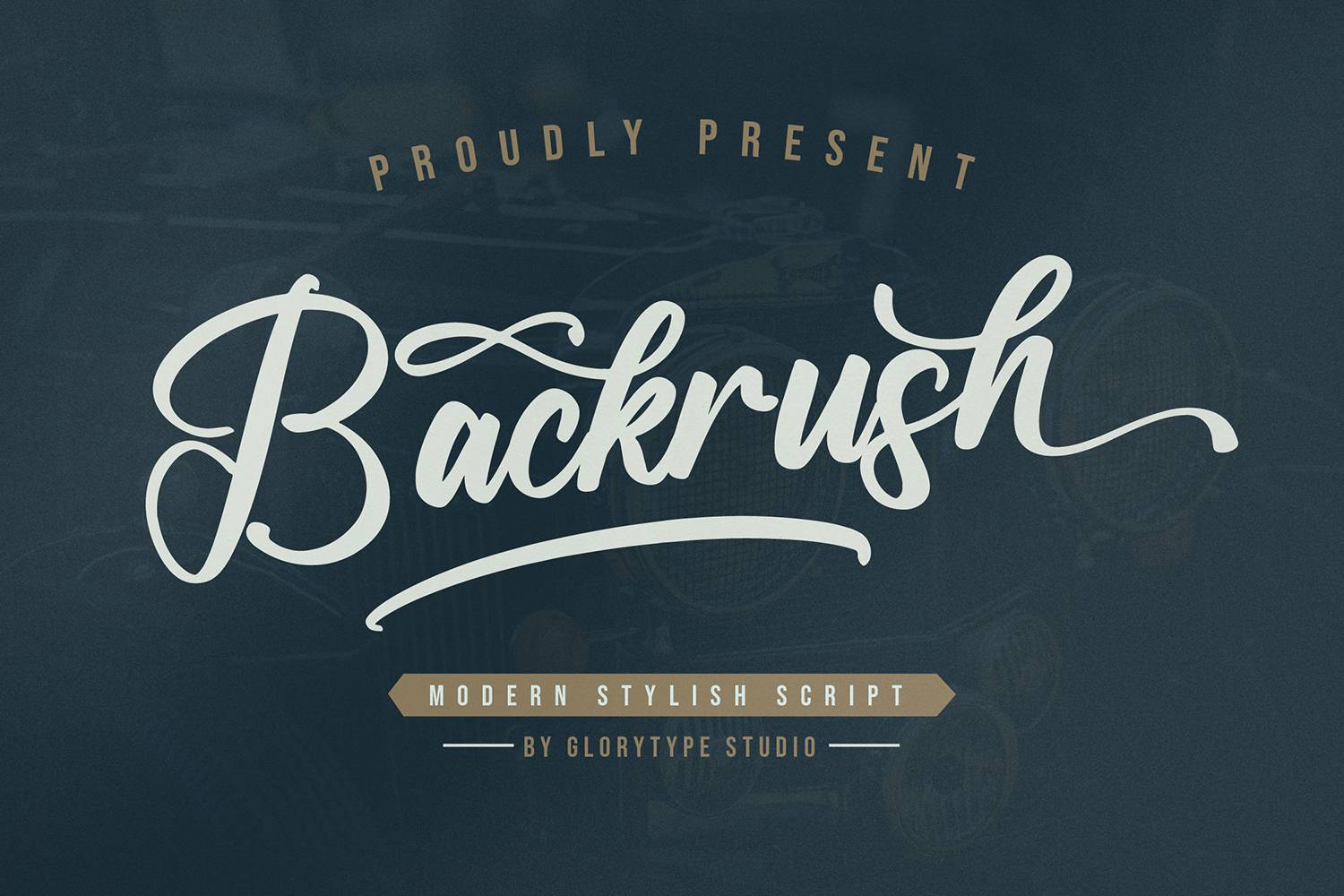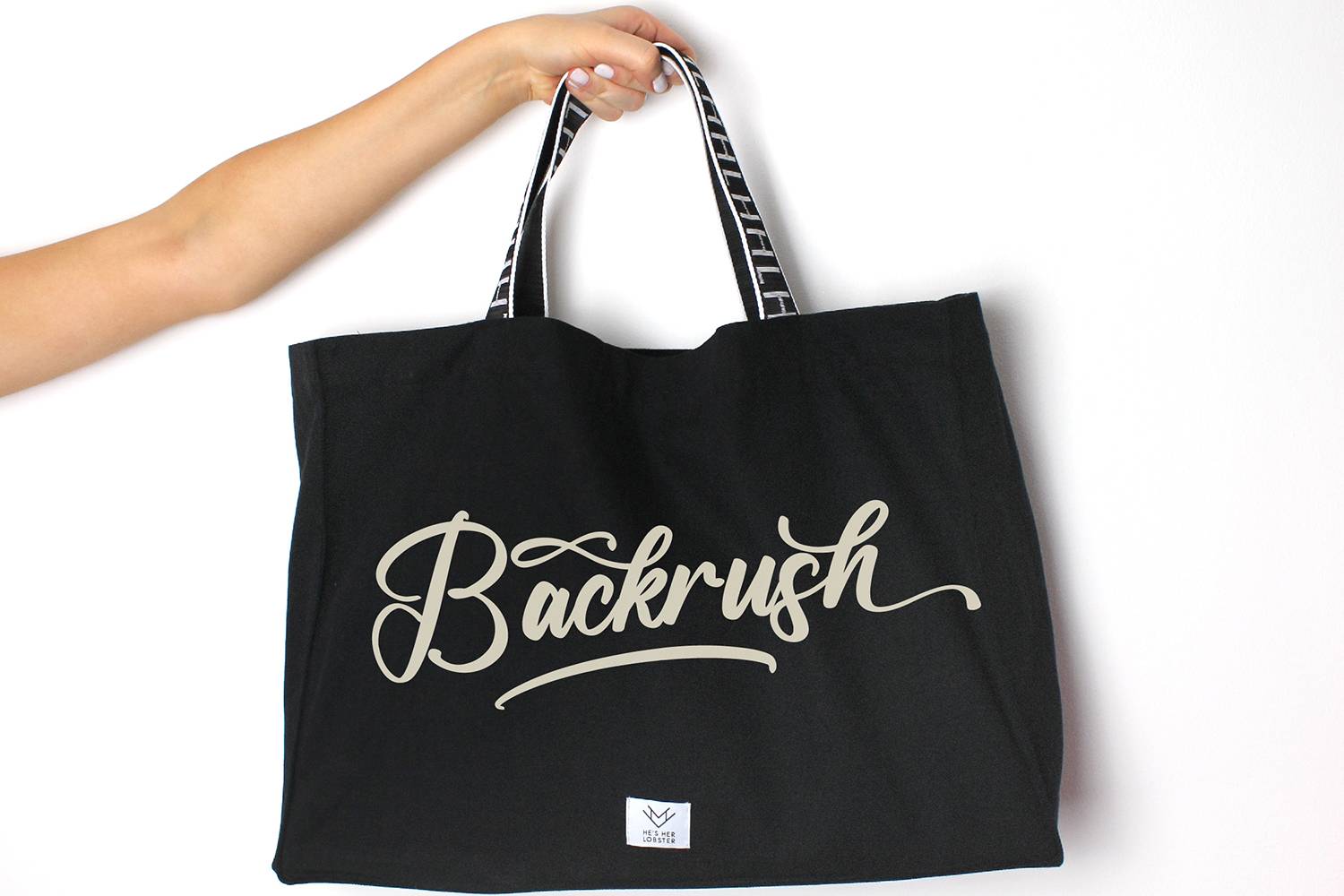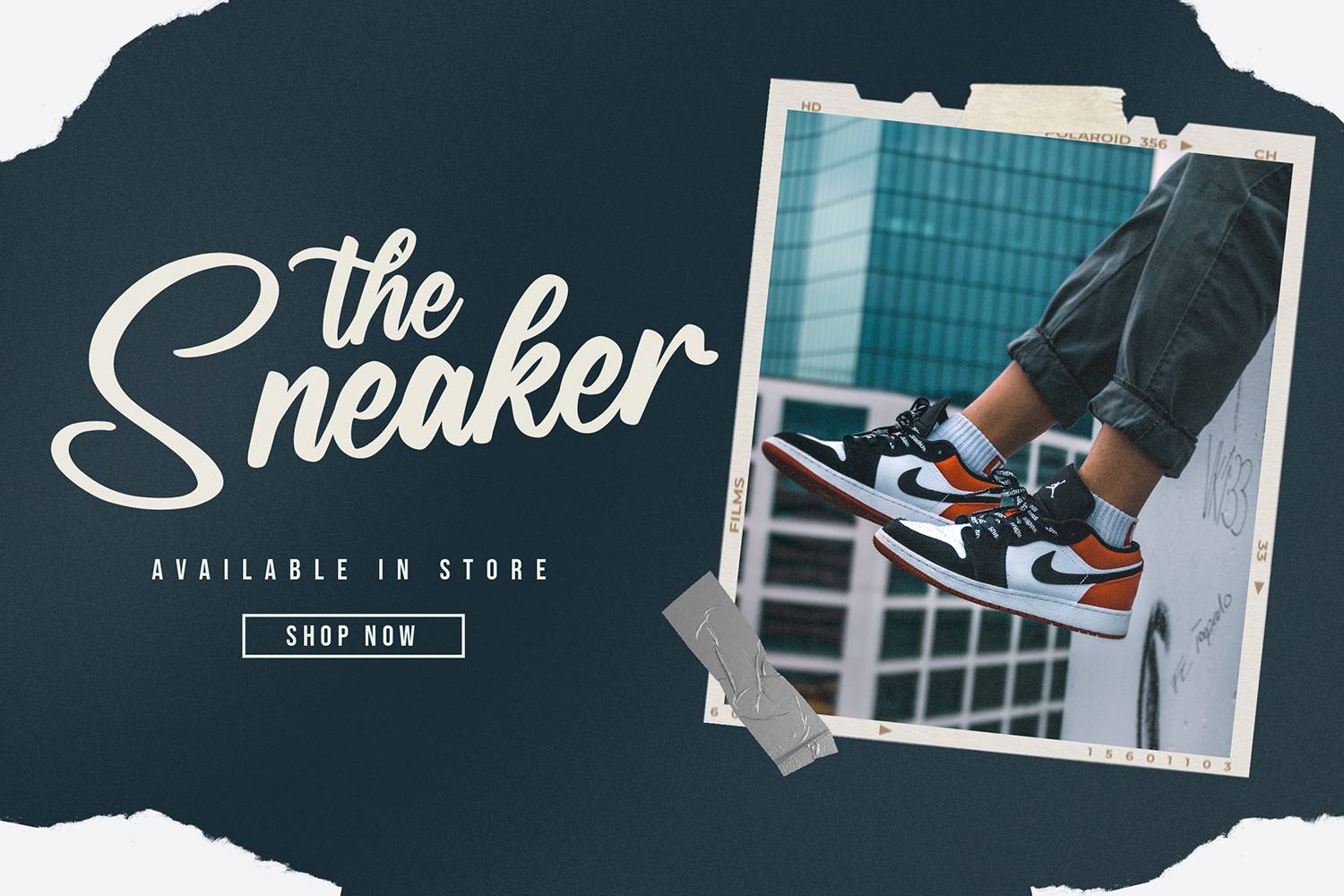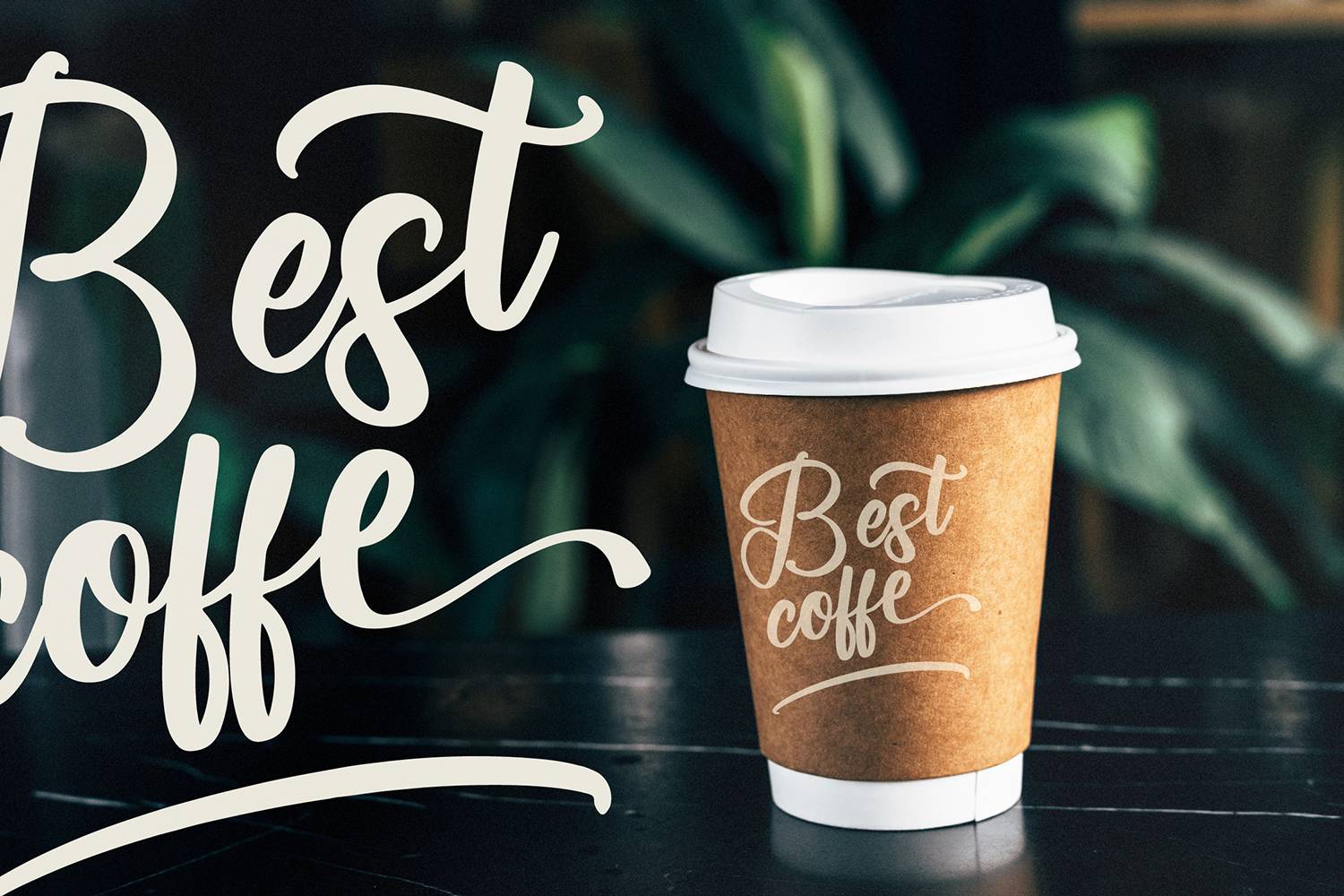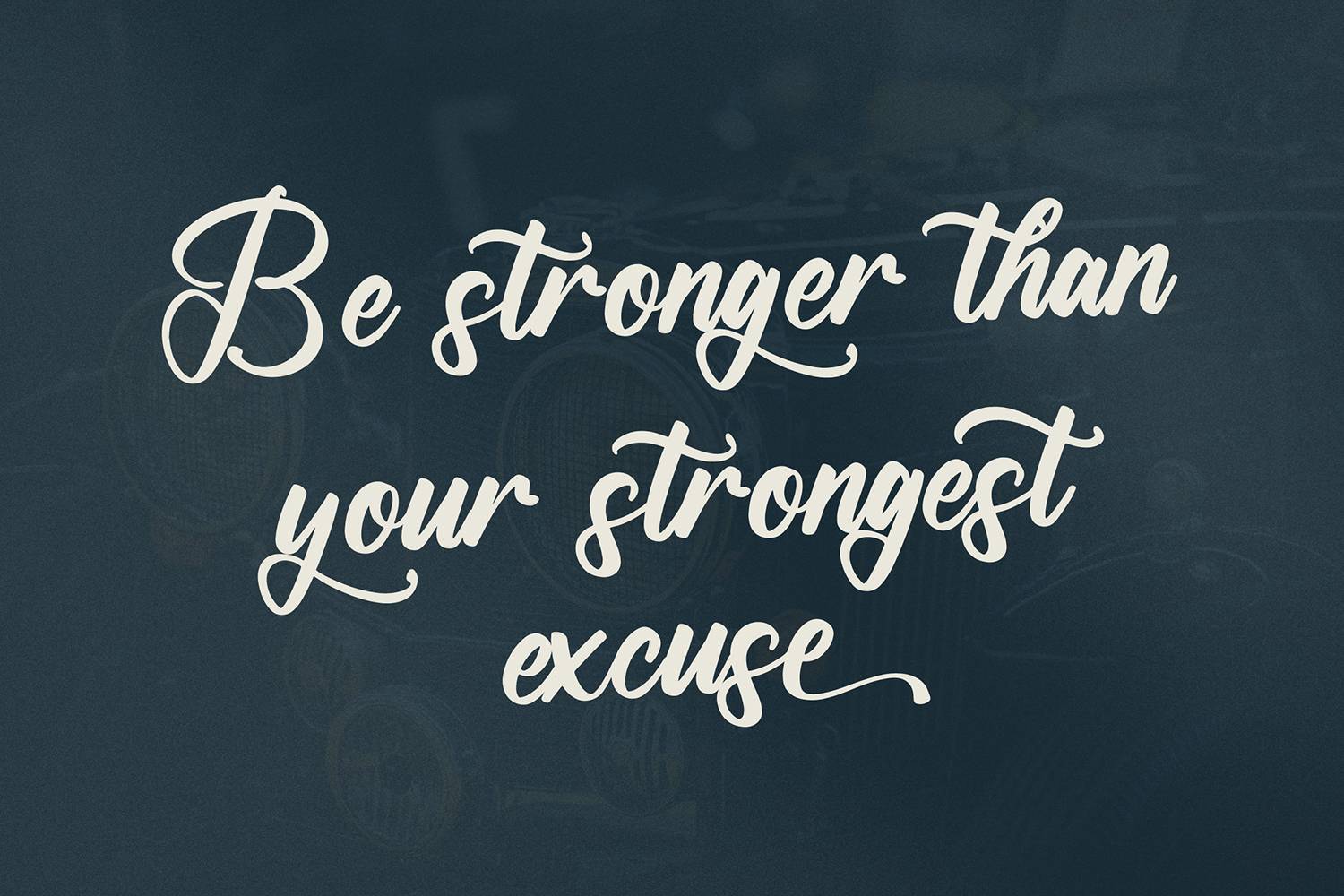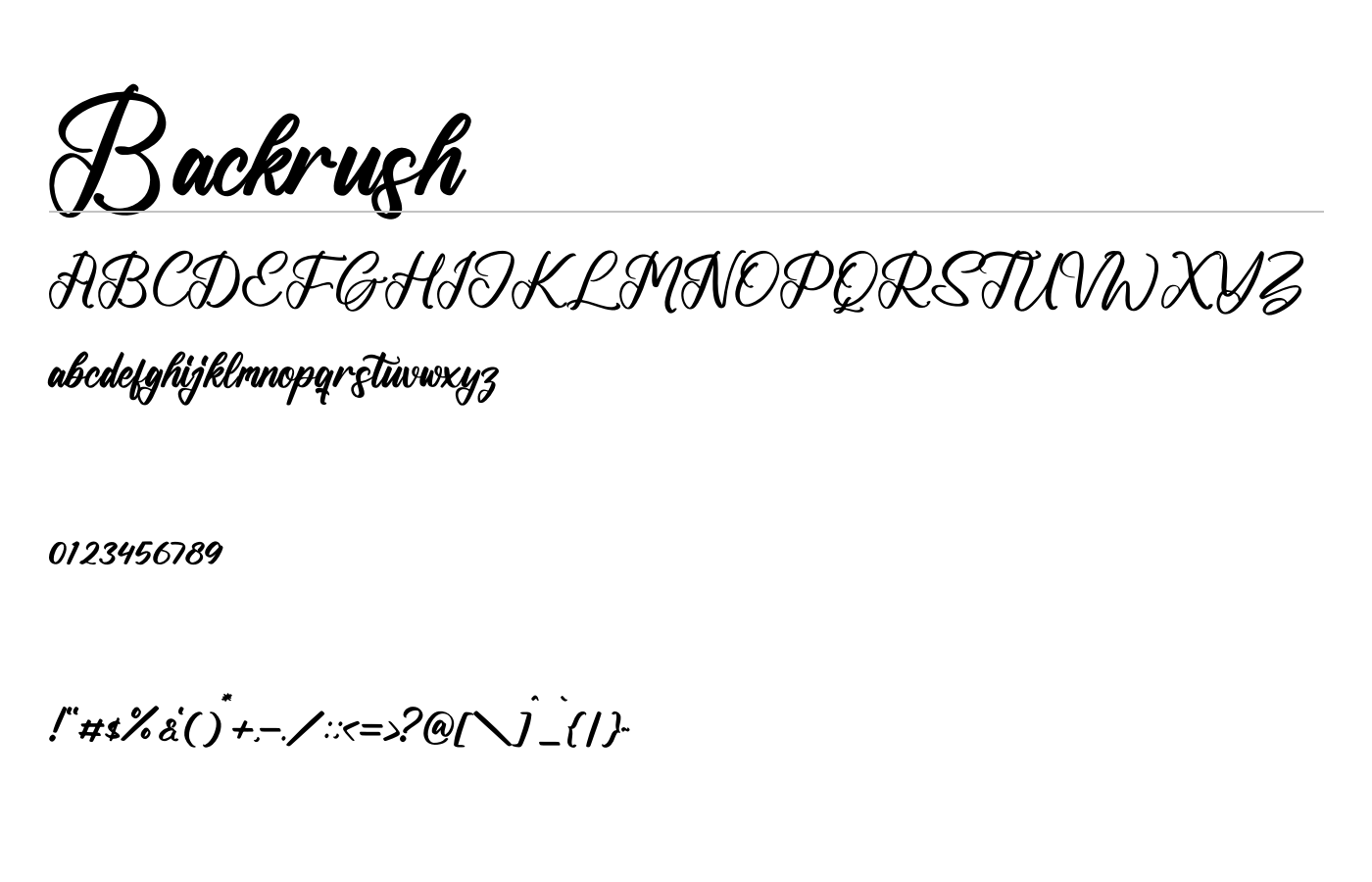
Backrush is a stylish script font that combines elegant, flowing strokes with a bold presence, making it both eye-catching and readable. Its smooth, brush-like curves and contemporary feel make it ideal for fashion branding, logos, invitations, and headlines where a touch of sophistication and personality is desired. This font works well in creative projects that want to convey charm and modern elegance.
Backrush Font
About Backrush Font